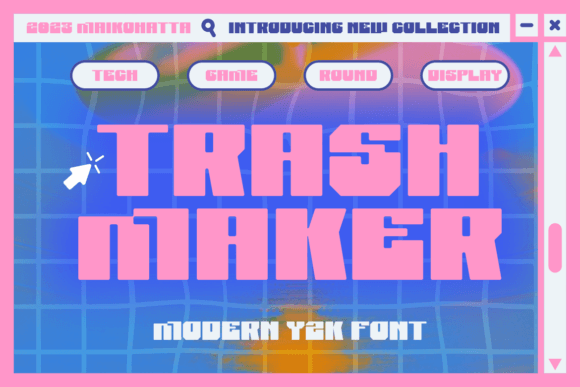
Trash Maker Font: A Retro-Futuristic Typeface Inspired by the Y2K Aesthetic
The Trash Maker Font is a visually striking typeface that embodies the futuristic style, technology, and digital elements of the early 2000s. This font is a nostalgic representation of the Y2K (2000) aesthetic, characterized by its incorporation of old computer displays, pixels, neon, and geometric shapes. In this article, we’ll explore the design elements, inspiration, and uses of the Trash Maker Font, as well as its significance in the world of typography.
The Y2K Aesthetic: A Brief History
The Y2K aesthetic, also known as the “millennial aesthetic,” refers to the visual style that emerged in the late 1990s and early 2000s. This period was marked by rapid technological advancements, the rise of the internet, and the proliferation of digital devices. The Y2K aesthetic is characterized by its futuristic and retro-futuristic elements, including neon colors, pixel art, and geometric shapes.
The Y2K aesthetic was influenced by various factors, including science fiction movies and TV shows, video games, and futuristic architecture. It was also shaped by the technological limitations of the time, such as the use of old computer displays, low-resolution images, and dial-up internet.
Design Elements of the Trash Maker Font
The Trash Maker Font is a digital typeface that incorporates various design elements reminiscent of the Y2K aesthetic. Some of its key features include:
- Pixelated letters: The font features pixelated letters, which give it a retro digital look.
- Neon colors: The font includes neon colors, which were a hallmark of the Y2K aesthetic.
- Geometric shapes: The font incorporates geometric shapes, such as squares, circles, and triangles, which were commonly used in digital design during the Y2K era.
- Old computer display-inspired design: The font’s design is inspired by old computer displays, with a focus on bold, chunky lines and a futuristic look.
Inspirations and Influences
The Trash Maker Font draws inspiration from various sources, including:
- Classic video games: The font’s pixelated design is reminiscent of classic video games from the 8-bit and 16-bit eras.
- Science fiction movies and TV shows: The font’s futuristic look is inspired by science fiction movies and TV shows, such as Blade Runner, Star Wars, and Tron.
- Early computer graphics: The font’s design is influenced by early computer graphics, including old computer displays and low-resolution images.
Uses of the Trash Maker Font
The Trash Maker Font is a versatile typeface that can be used in various contexts, including:
- Graphic design: The font can be used in graphic design projects, such as posters, flyers, and brochures.
- Digital art: The font can be used in digital art projects, such as pixel art, digital paintings, and illustrations.
- Web design: The font can be used in web design projects, such as website headers, buttons, and icons.
- Typography: The font can be used in typography projects, such as quotes, posters, and typographic compositions.
Significance in Typography
The Trash Maker Font is significant in the world of typography for several reasons:
- Retro-futuristic aesthetic: The font’s retro-futuristic aesthetic is a nostalgic reminder of the Y2K era and its influence on design.
- Digital design: The font’s digital design elements, such as pixels and neon colors, reflect the increasing importance of digital design in modern typography.
- Creative expression: The font’s unique design elements and versatility make it a valuable tool for creative expression and artistic projects.
The Trash Maker Font is a visually striking typeface that embodies the futuristic style, technology, and digital elements of the early 2000s. Its design elements, inspiration, and uses make it a valuable resource for designers, artists, and typographers. As a retro-futuristic typeface, the Trash Maker Font is a nostalgic reminder of the Y2K era and its influence on design.
- What is the Trash Maker Font? The Trash Maker Font is a digital typeface inspired by the Y2K aesthetic, featuring pixelated letters, neon colors, and geometric shapes.
- What is the Y2K aesthetic? The Y2K aesthetic is a visual style that emerged in the late 1990s and early 2000s, characterized by futuristic and retro-futuristic elements, including neon colors, pixel art, and geometric shapes.
- What are the uses of the Trash Maker Font? The Trash Maker Font can be used in graphic design, digital art, web design, and typography projects.